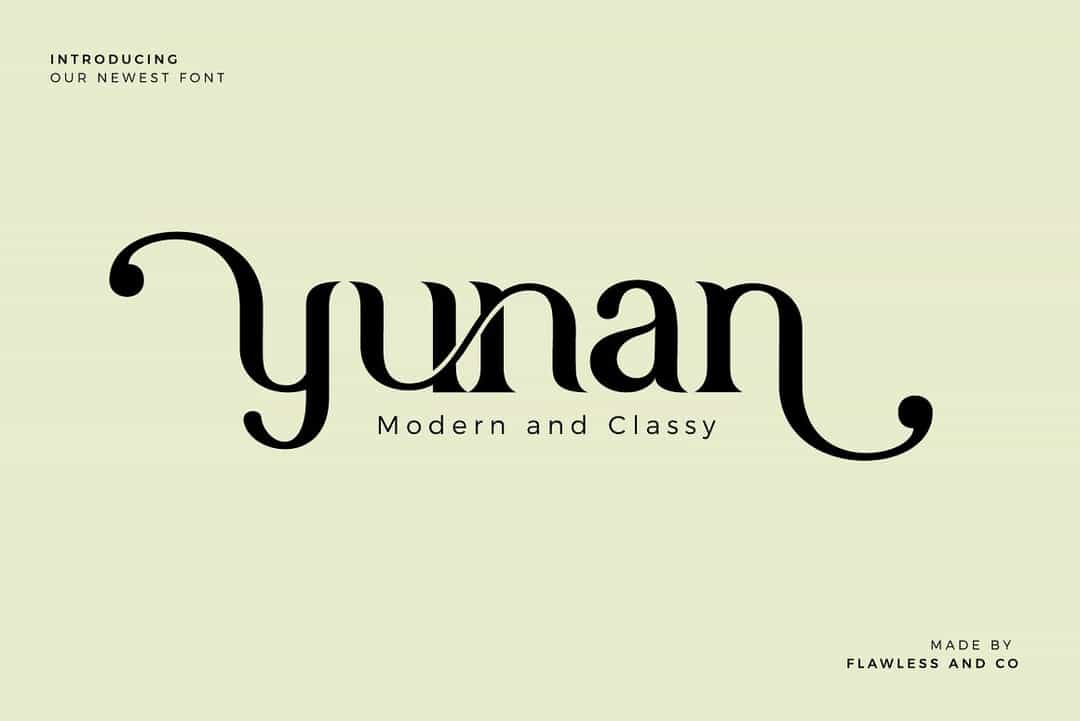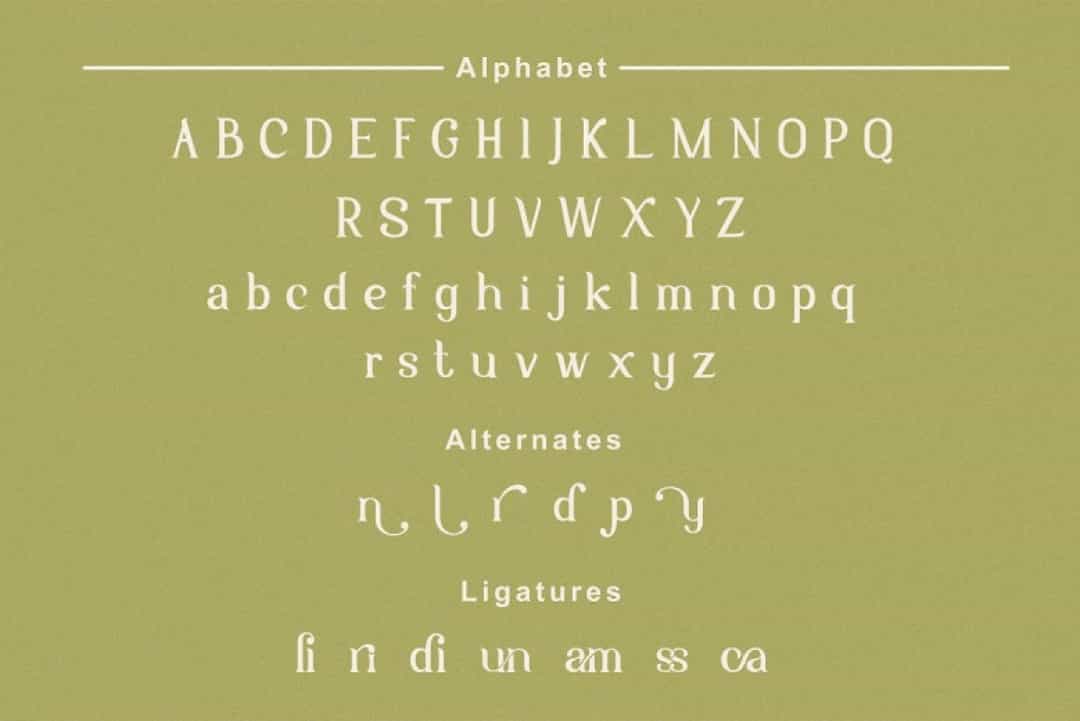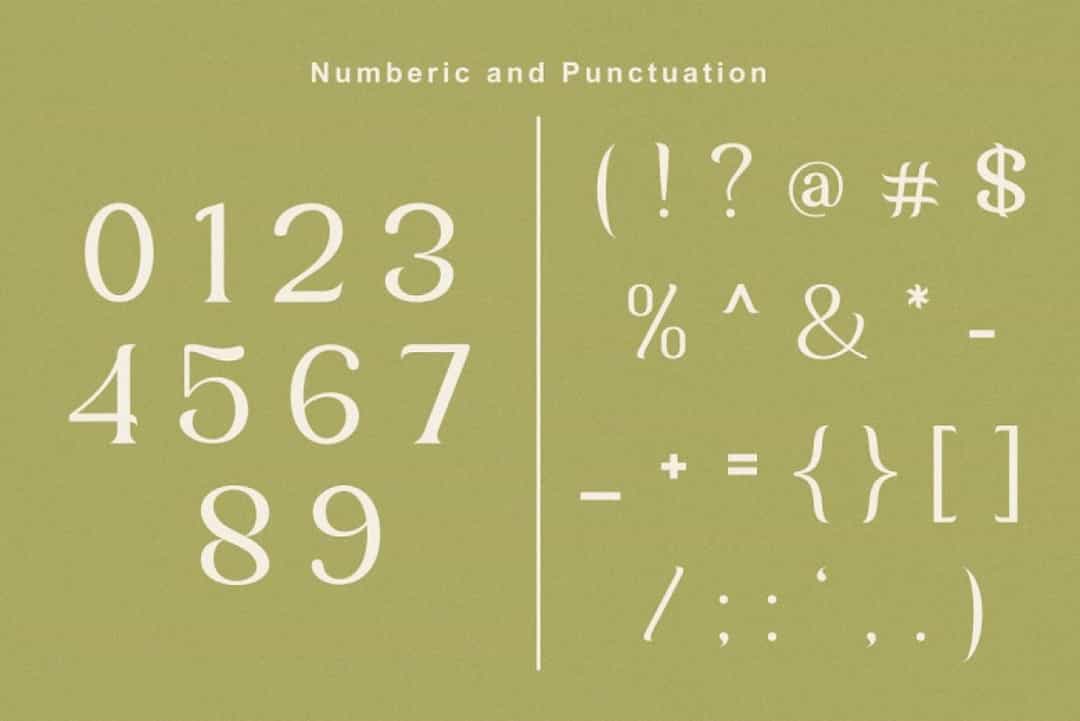
Yunan is a contemporary yet classic serif typeface. Perfect for branding purposes such as wedding invitations or logo designs. Handmade or other creative applications.